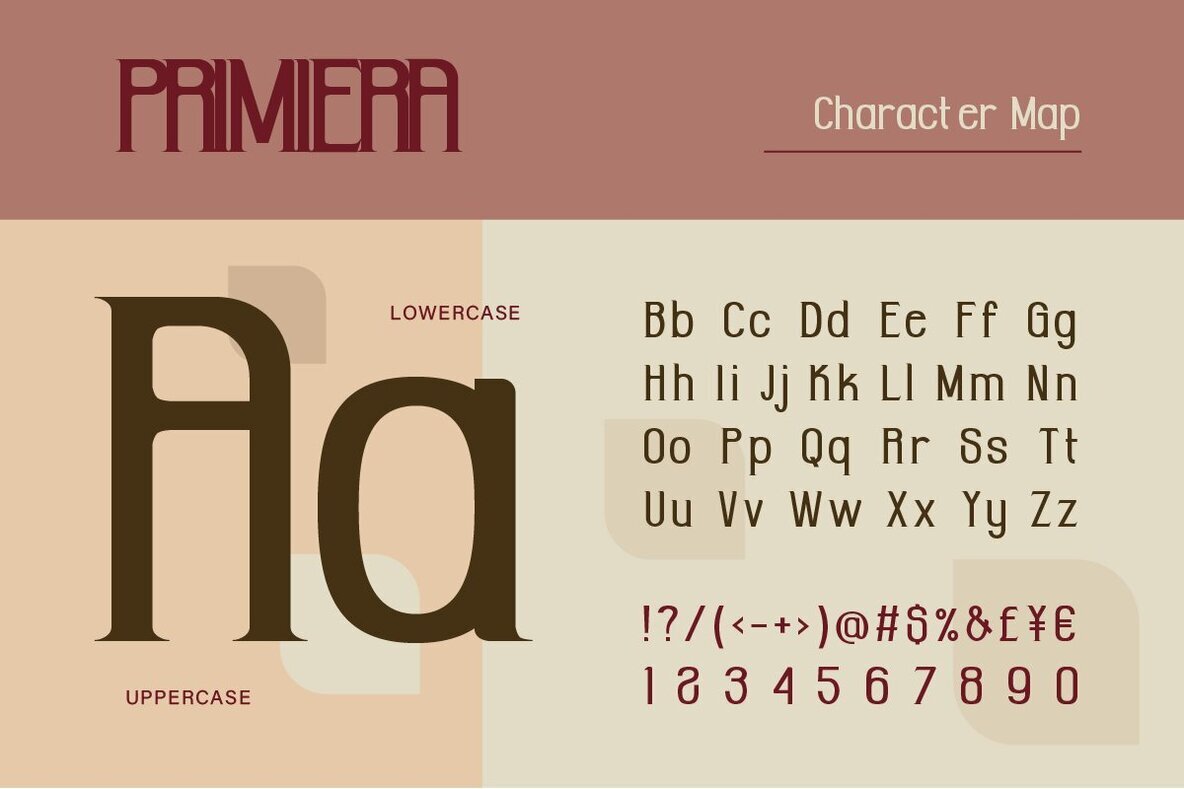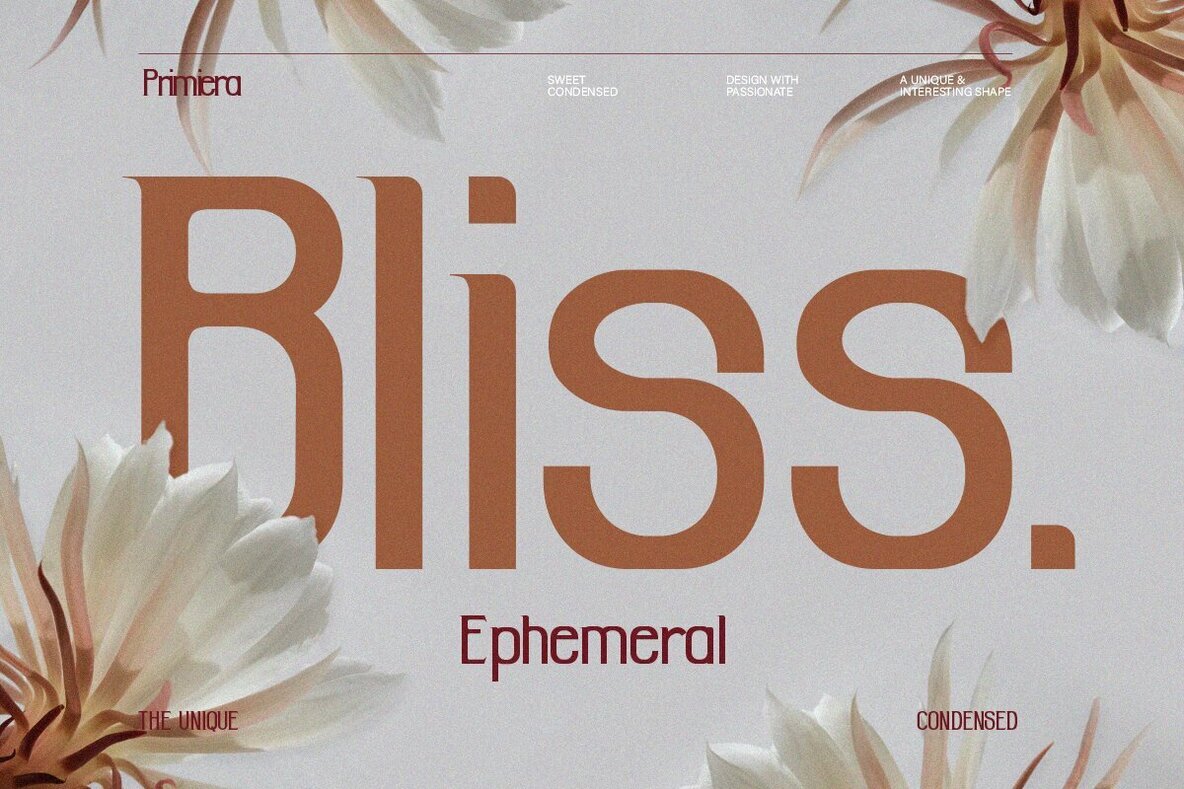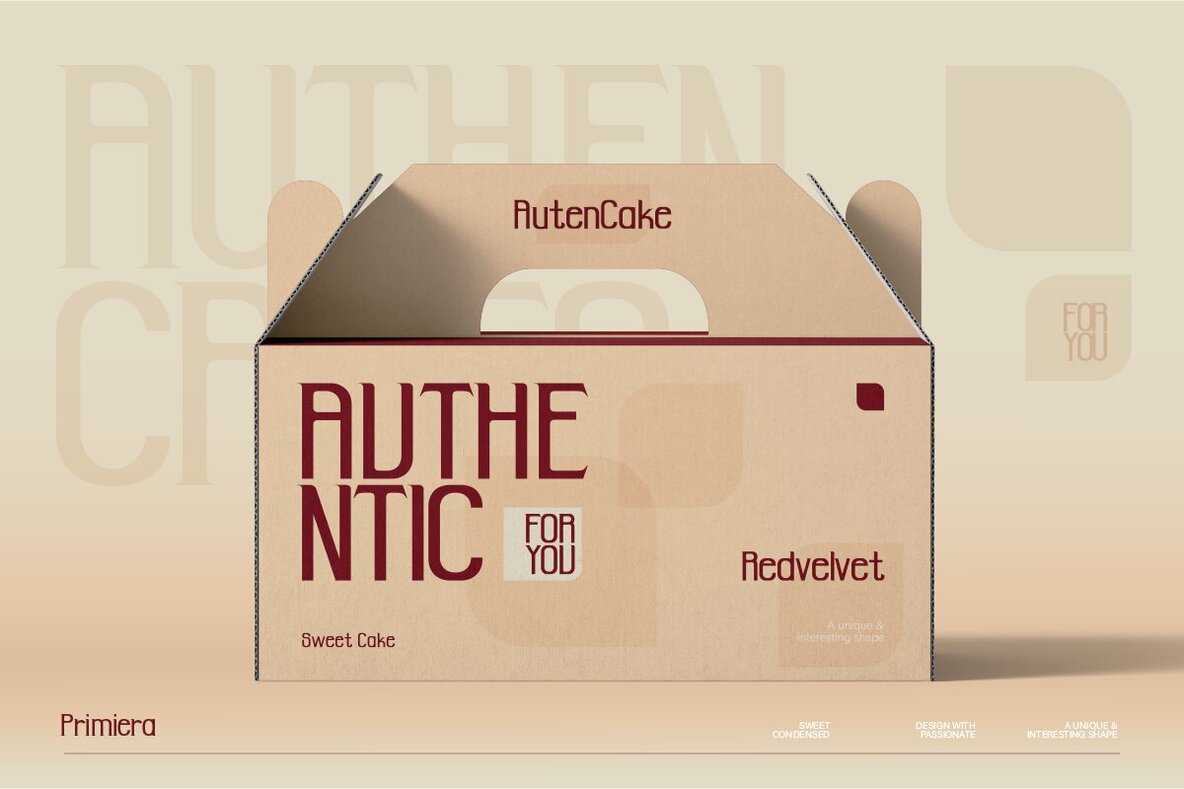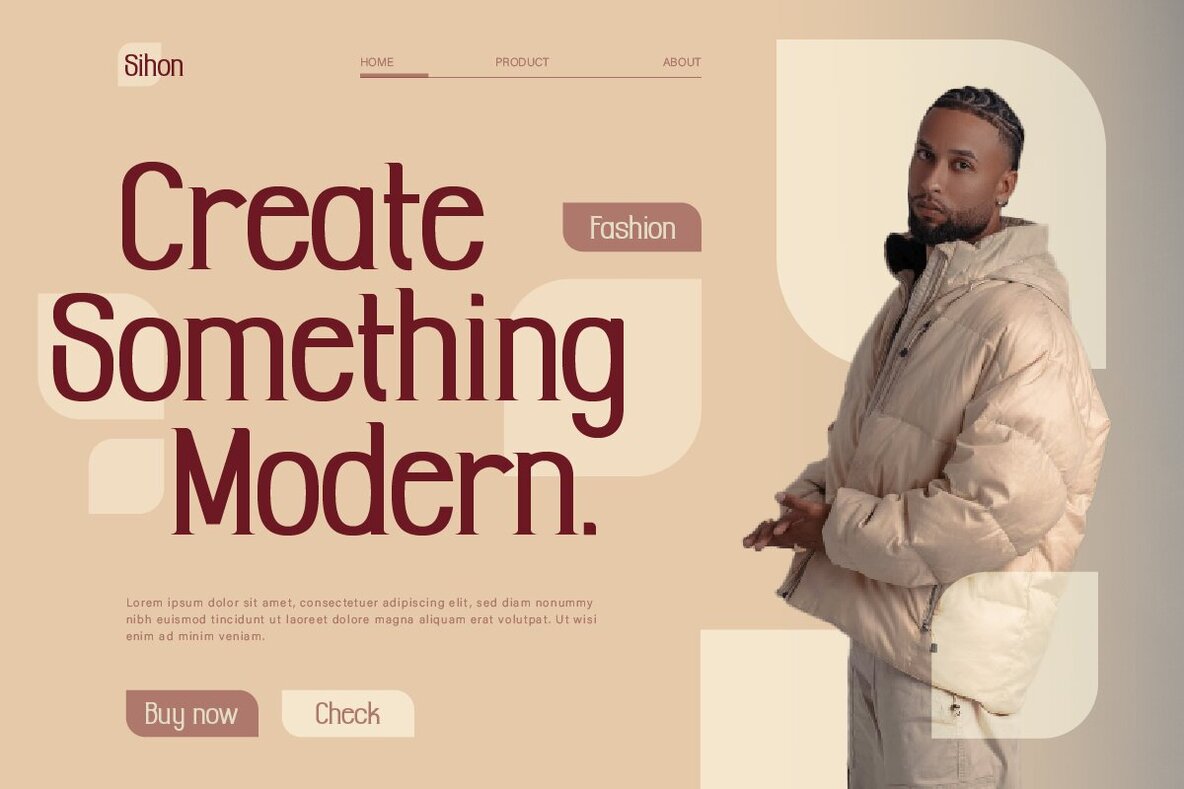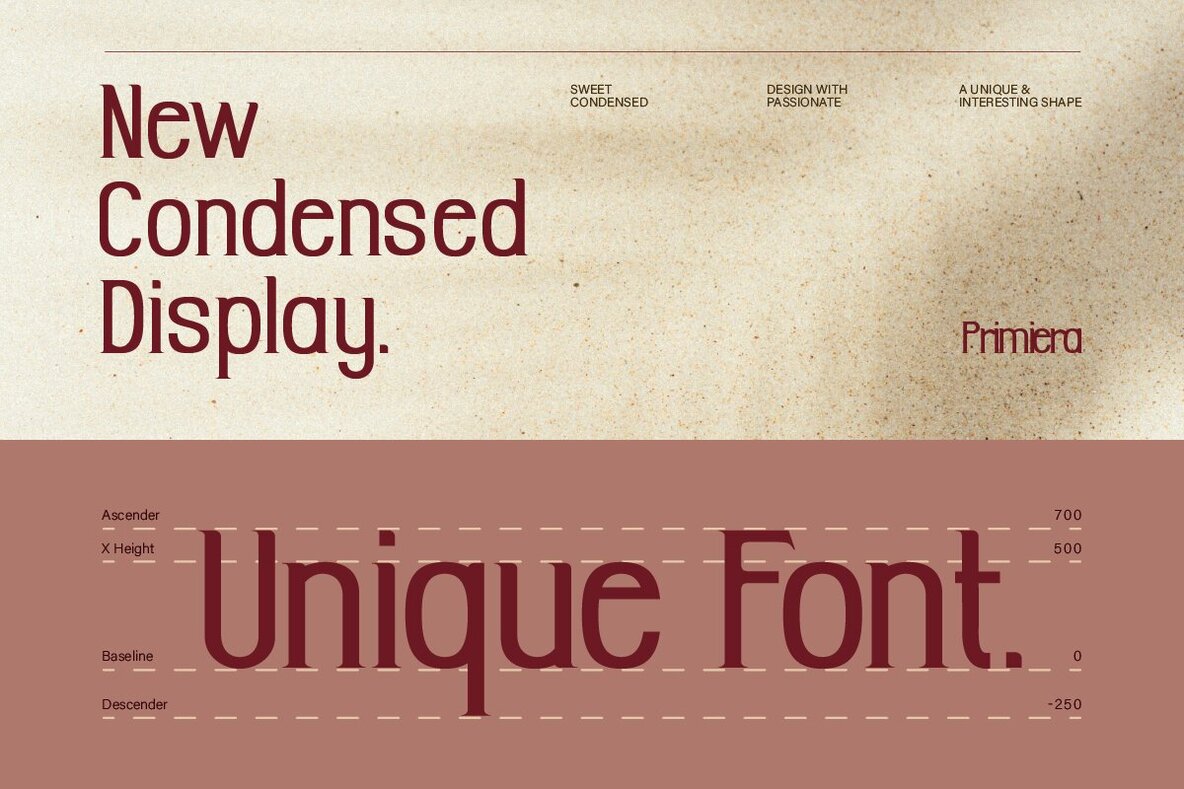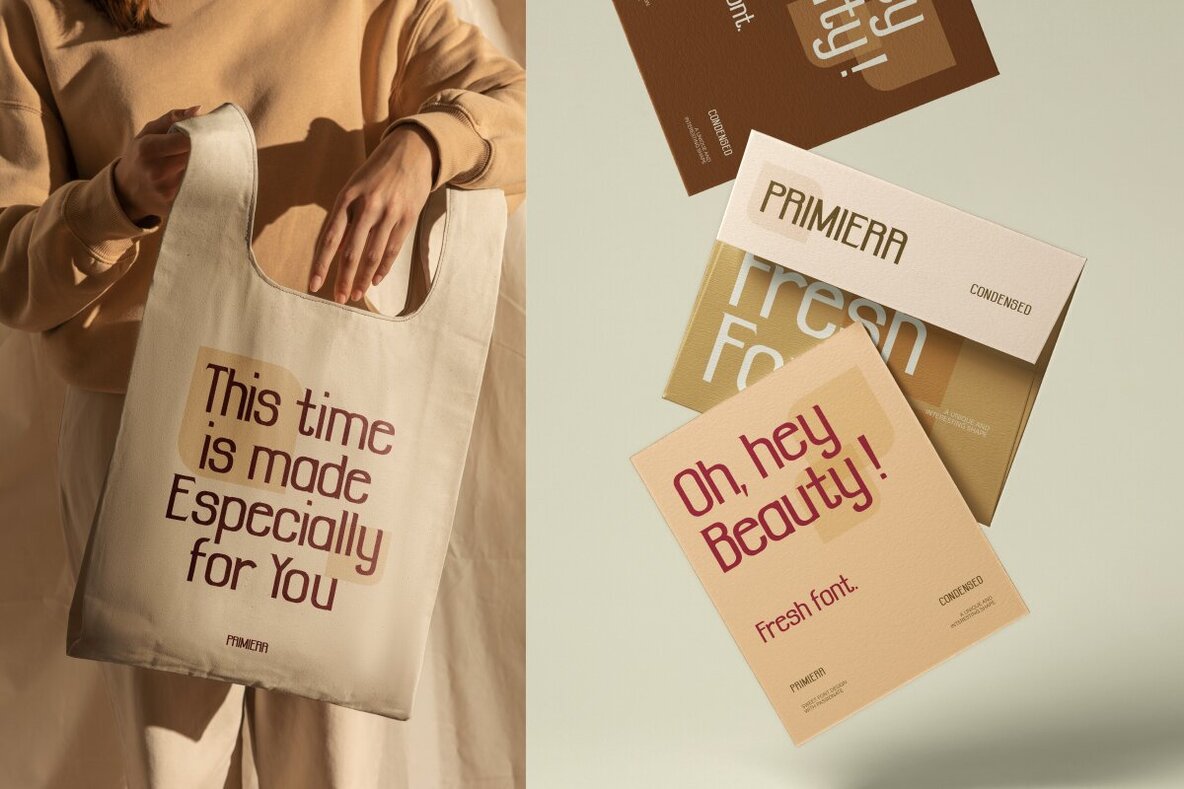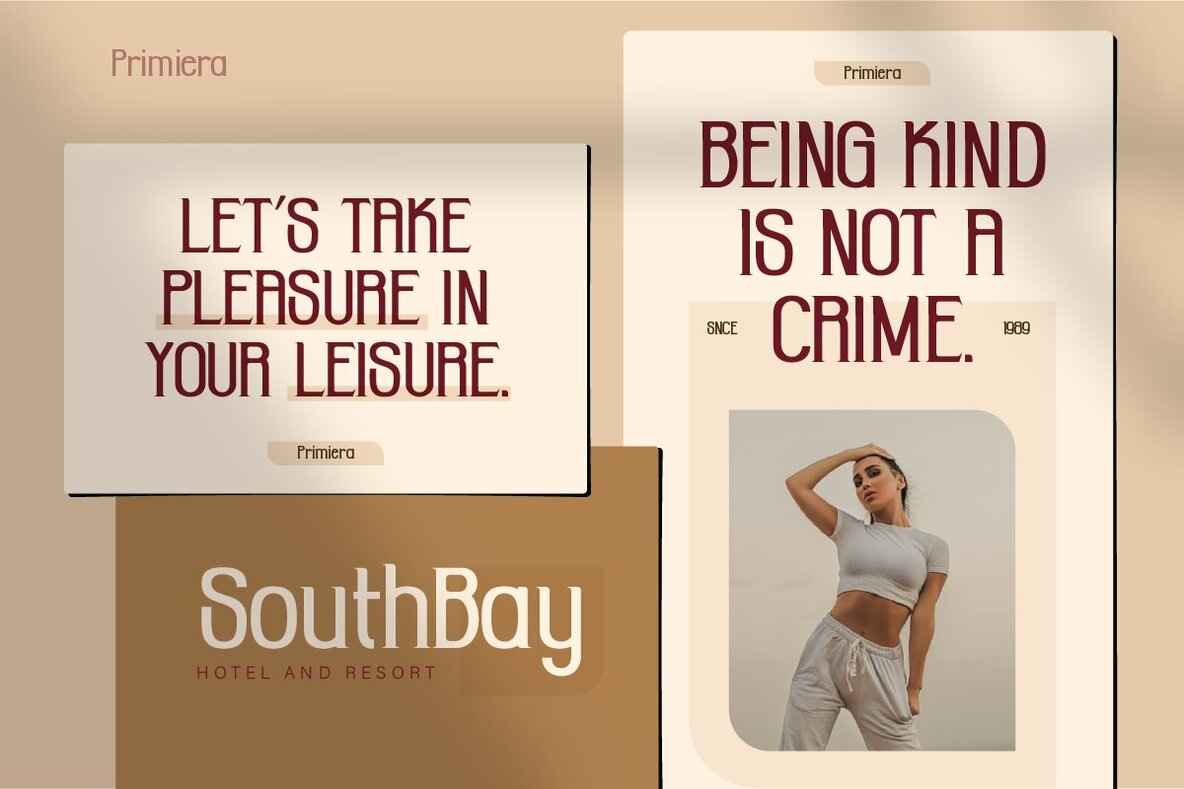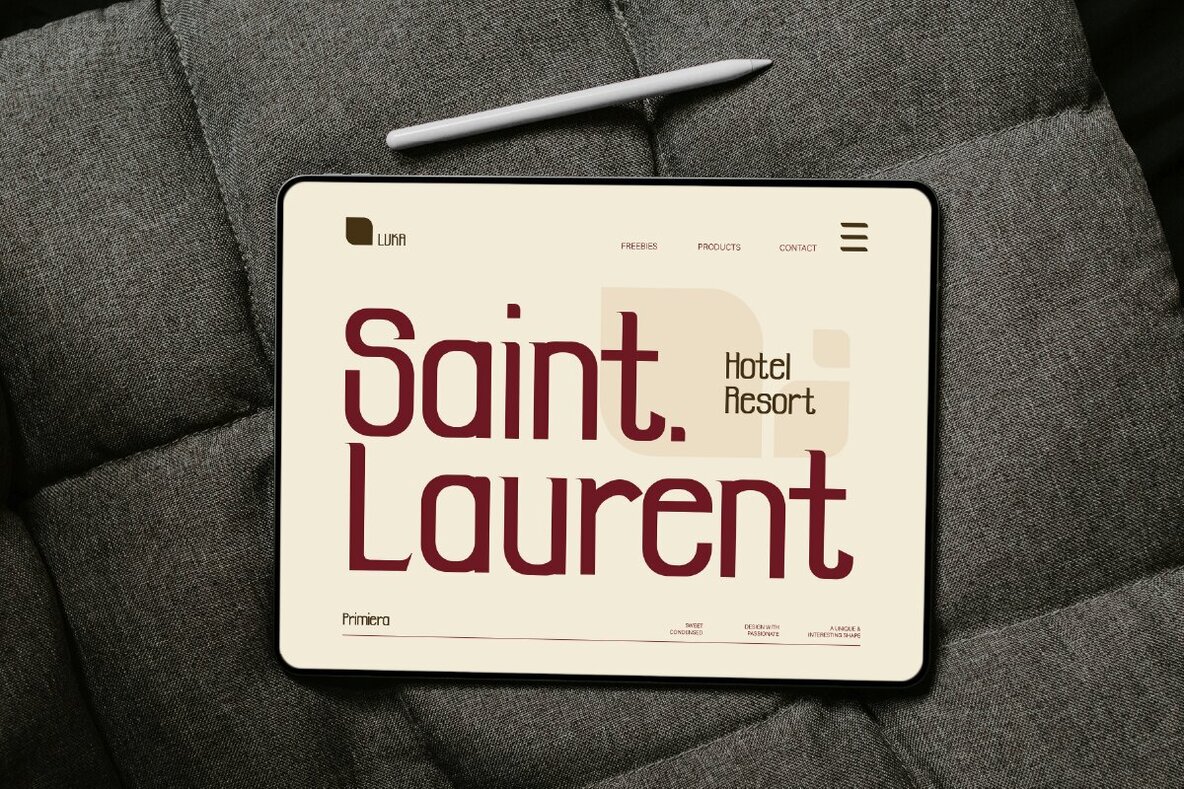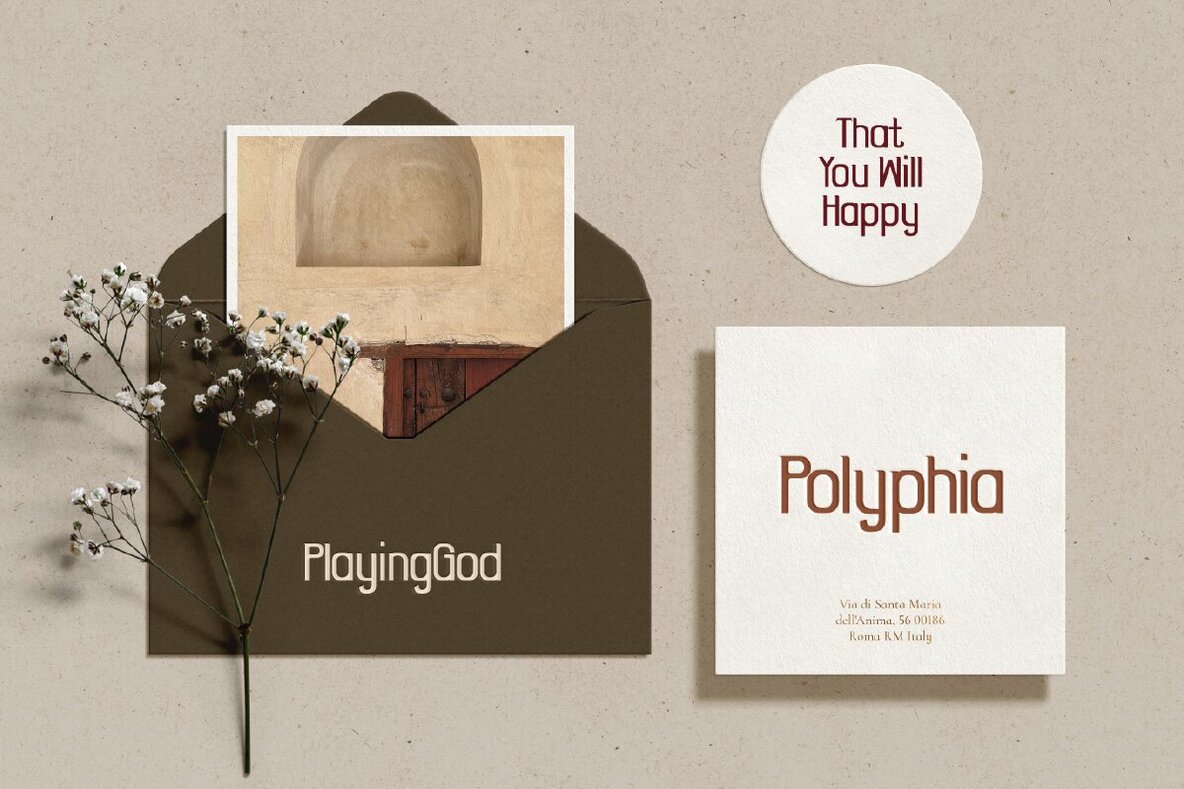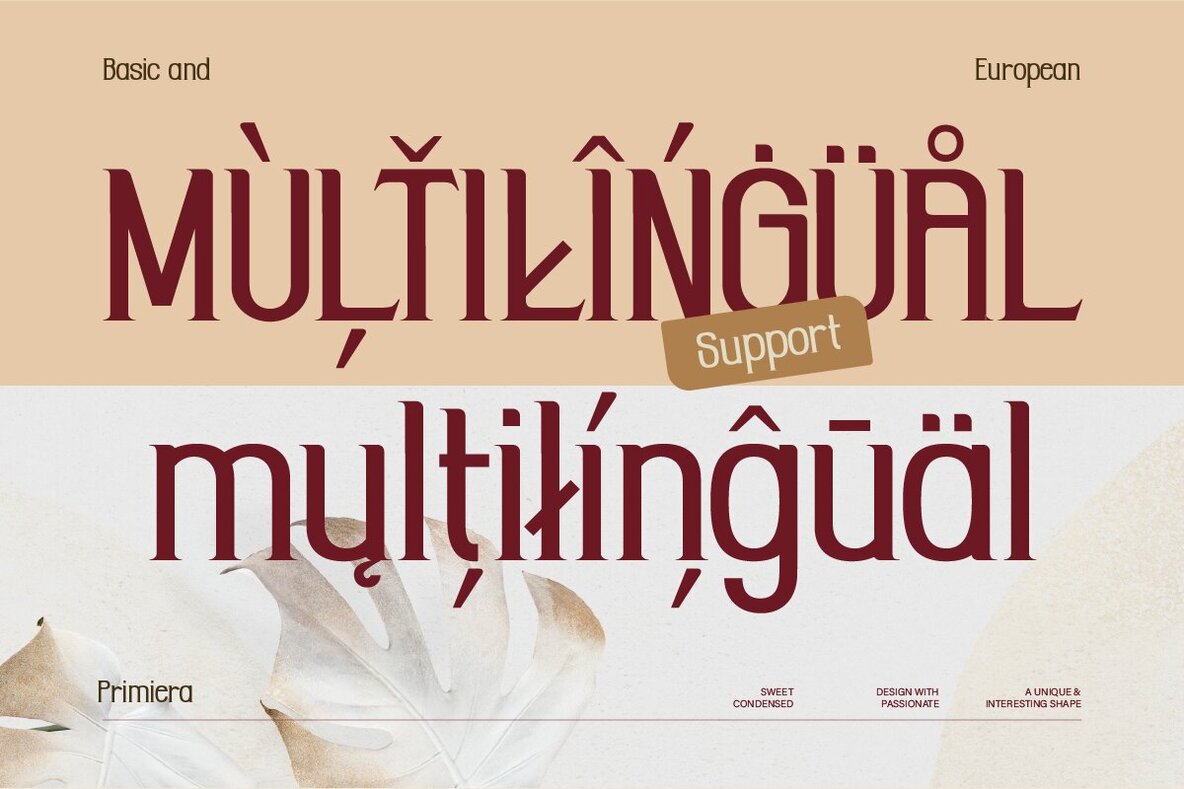
Primiera Font
Primiera is a sans serif condensed font crafted for ultimate readability and striking visual appeal. Available in both regular and oblique styles, it suits a wide range of design projects. Characterized by its clean, minimalist, and modern look, Primiera is gentle on the eyes and versatile in usage.
This font supports multiple languages with basic European accents, making it an excellent choice for international brands. Whether you're designing a logo, creating a poster, or developing a website, Primiera ensures clear and effective communication.
Primiera provides the precision and elegance needed for diverse creative endeavors.